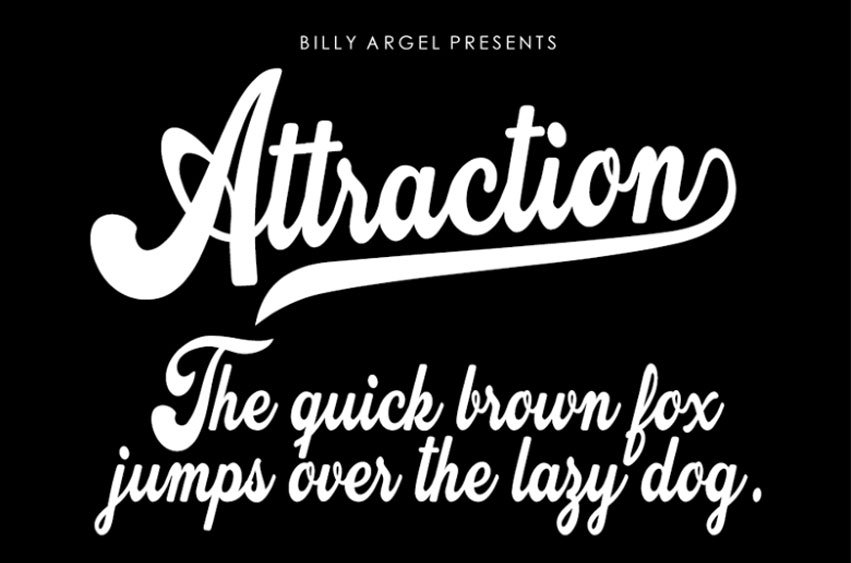
Attraction Font
Attraction Font can be described as an Old School one is called Attraction and is created by Billy Argel; it is free to download and use in personal projects only.
The free version of the app has all the letters of the English alphabet both in uppercase and lower case along with a few other symbols.